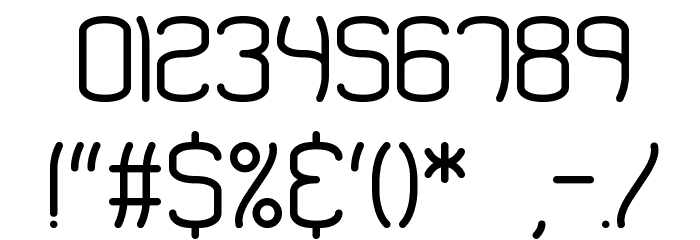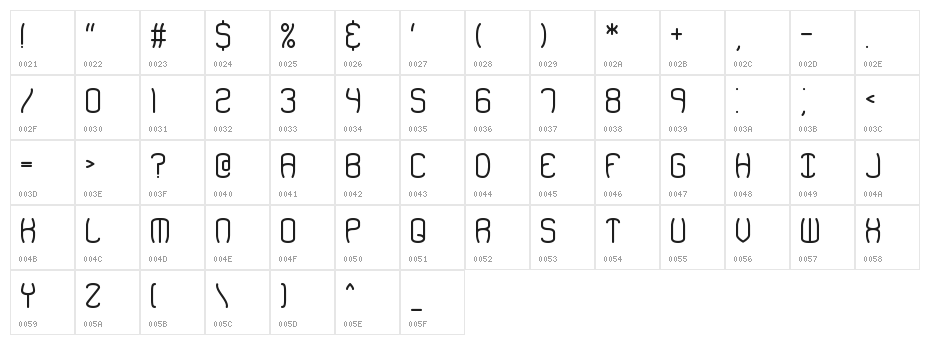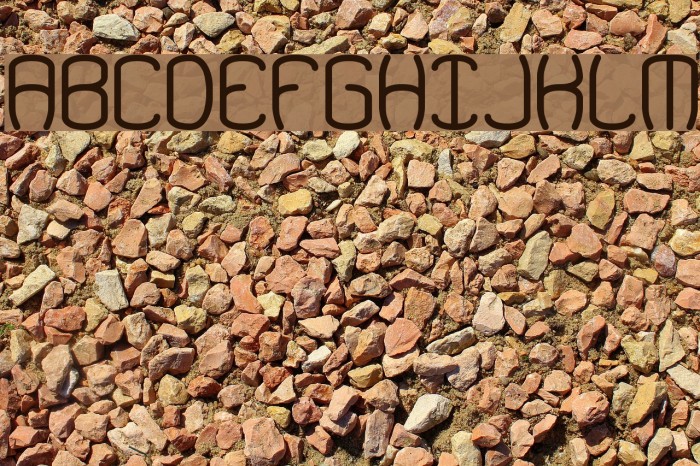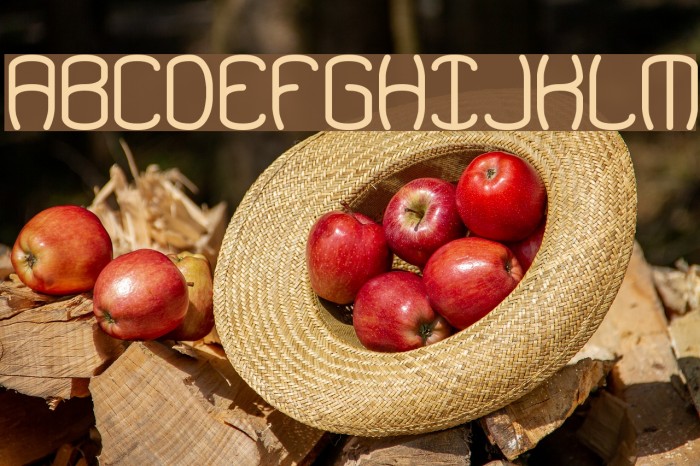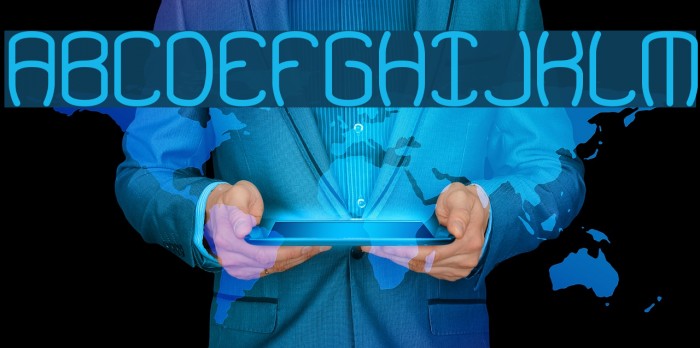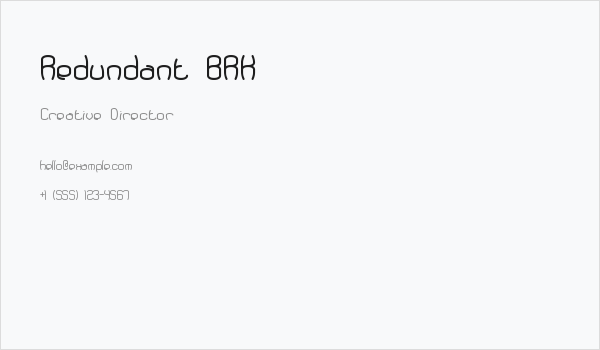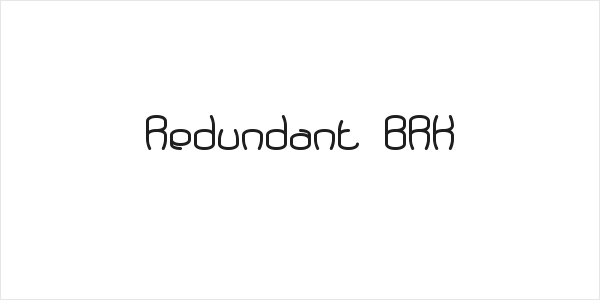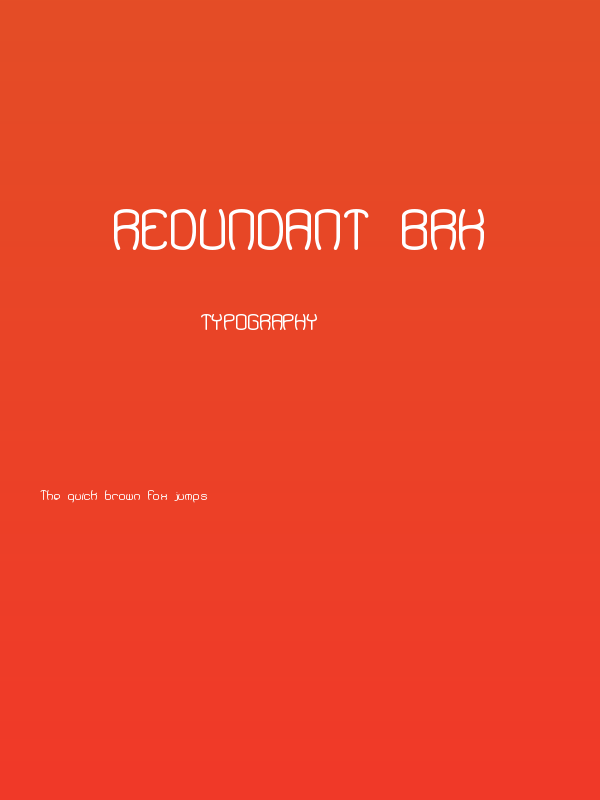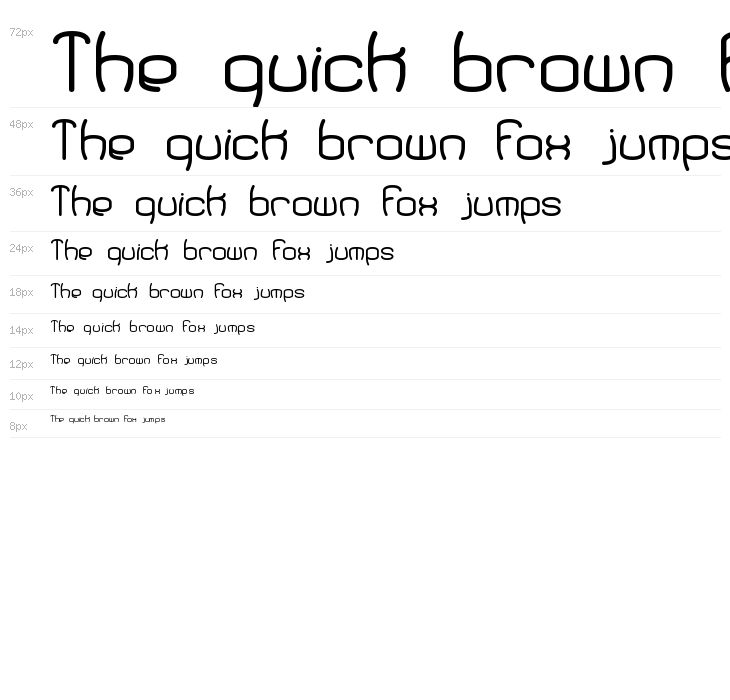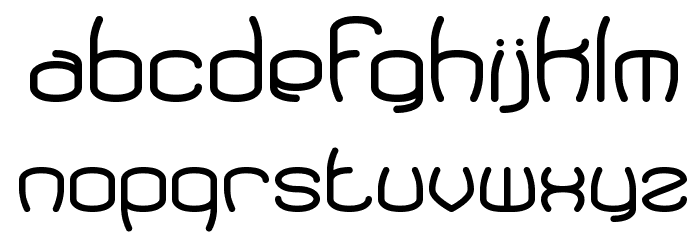
Redundant BRK Font
Redundant BRK Description
This font features a unique and modern design with rounded edges and a slightly condensed form. The characters exhibit a playful and futuristic style, with smooth curves and a consistent stroke width. The uppercase and lowercase letters maintain a uniform appearance, while the numerals and special characters complement the overall aesthetic. The font's distinctiveness lies in its blend of geometric shapes and organic flow, making it stand out in various design contexts. Its legibility and stylish form make it suitable for creative projects that require a touch of modernity and flair.